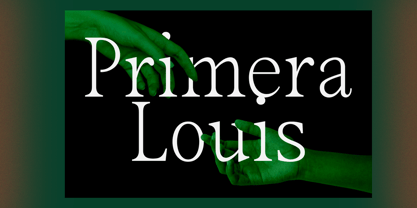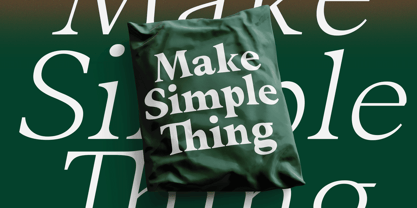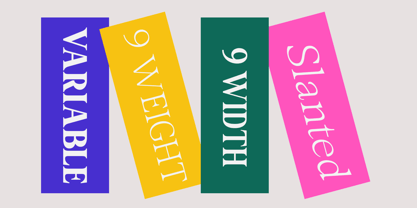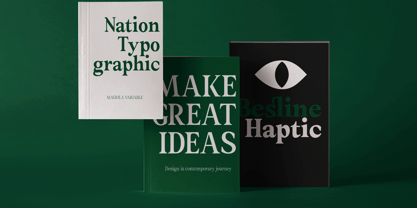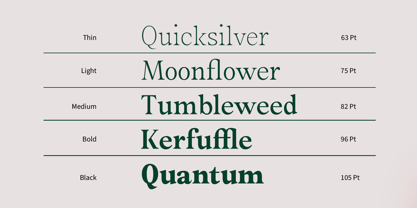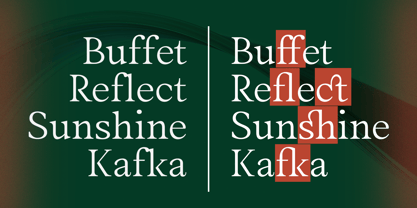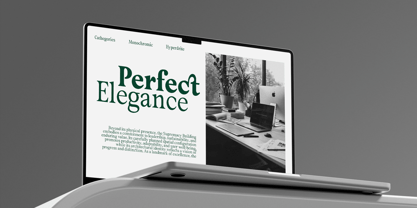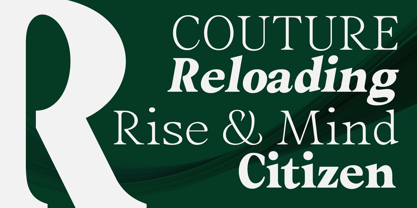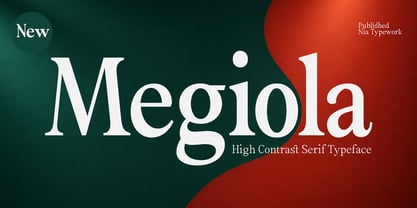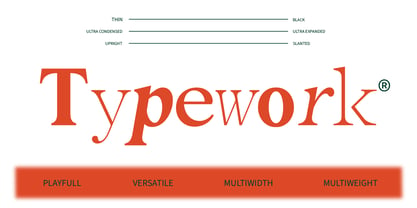
Megiola
by Nia Typework
The Megiola Font Family was designed by Mauli Zari, Nia Octarina and published by Nia Typework. Megiola contains 32 styles. More about this family
Megiola is a sophisticated high-contrast serif typeface that blends elegant proportions with a refined contemporary editorial character. Carefully crafted to balance beauty and functionality, it features Multiple weights, widths, Upright & Slanted styles, and a Variable Font, giving designers exceptional flexibility across a wide range of creative applications.
From high-fashion branding and luxury packaging to editorial layouts, posters, magazines, and modern visual identities, Megiola adapts seamlessly while maintaining its distinctive personality.
Elegant, expressive, and highly versatile, Megiola is designed to deliver a strong and memorable typographic statement at any scale, from bold display settings to refined body text.